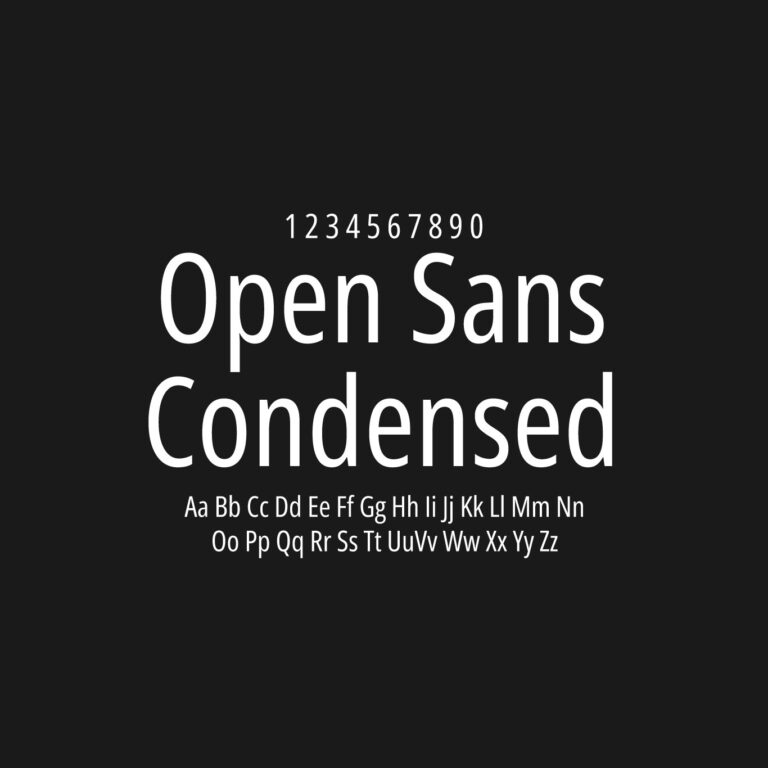
Open Sans Condensed is a narrower version of the Open Sans type family. It keeps the readable and friendly humanist character of Open Sans while using tighter proportions, making it useful when text needs to fit into limited horizontal space. This makes it practical for navigation menus, dashboard cards, tables, chart labels, sidebars, mobile screens, compact headings, and information-heavy layouts.
The Light style works well for elegant narrow headings, captions, and refined interface details. Regular and Medium are useful for compact body text, labels, buttons, forms, navigation, and UI layouts. SemiBold, Bold, and ExtraBold styles are better for section titles, table headers, banners, presentation covers, poster headlines, and stronger visual hierarchy.
Designer: Steve Matteson
Best Uses
Open Sans Condensed is suitable for website typography, mobile app interfaces, SaaS dashboards, admin panels, navigation menus, tables, chart labels, reports, presentation slides, poster headlines, documentation pages, product cards, forms, labels, and compact business layouts.
Use Regular and Medium for readable compact UI text, labels, buttons, and short body copy. Use Light for subtle headings and clean interface details. Use SemiBold, Bold, and ExtraBold for table headers, dashboard titles, section headings, banners, posters, and stronger visual hierarchy.
Open Sans vs Open Sans Condensed
Open Sans and Open Sans Condensed share the same readable and friendly humanist sans-serif character, but Open Sans Condensed has narrower proportions. This makes the condensed version better for space-limited layouts such as tables, sidebars, dashboards, mobile screens, labels, narrow columns, and dense presentation slides.
Use regular Open Sans when comfortable spacing and long-form readability are the priority. Use Open Sans Condensed when you need to fit more text into a limited horizontal area or create a stronger vertical headline style.
Open Sans Condensed vs Open Sans SemiCondensed
Open Sans Condensed is narrower than Open Sans SemiCondensed. SemiCondensed keeps more width and can feel closer to regular Open Sans, while Condensed is better for tighter layouts, poster headlines, compact labels, dense dashboards, and narrow content areas.
If readability is the main priority, SemiCondensed may be easier for longer text. If space-saving or stronger condensed display typography is the goal, Open Sans Condensed is the better choice.
Fonts similar to Open Sans Condensed include Roboto Condensed, Open Sans SemiCondensed, Source Sans 3, Noto Sans, Lato, Inter, IBM Plex Sans Condensed, Arial Narrow, Aptos Narrow, Helvetica Neue Condensed, and other readable sans-serif fonts for compact layouts.